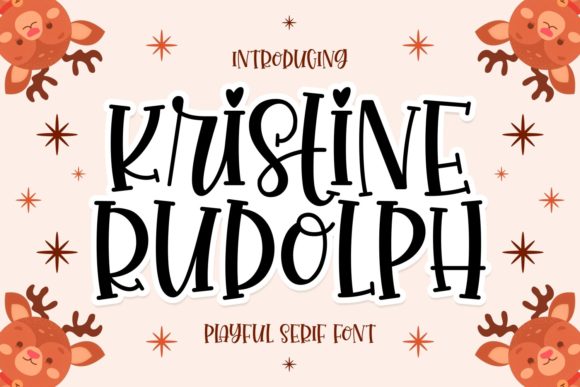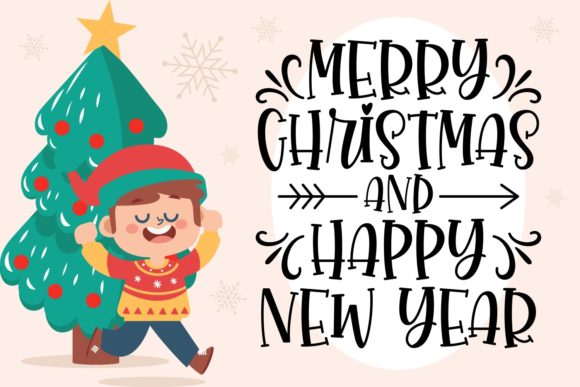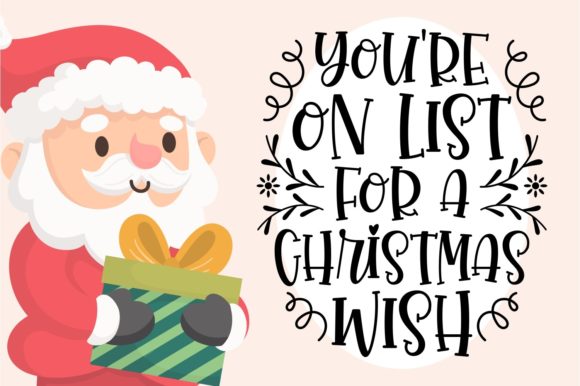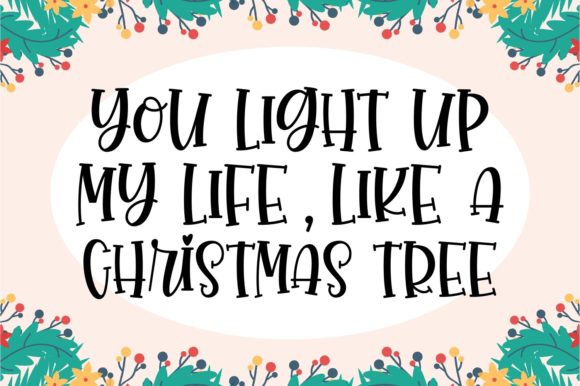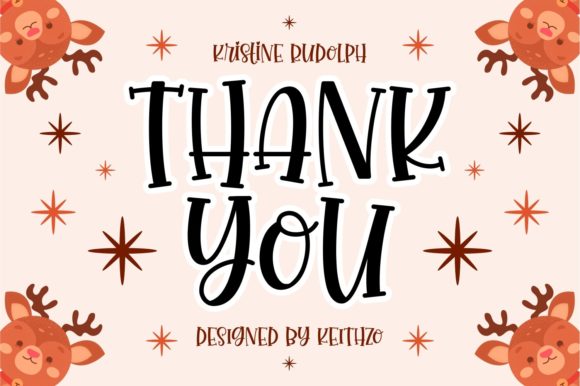
Kristine Rudolph Font
Kristine Rudolph is a charming and playful serif font. Whether you’re using it for crafts, digital design, presentations, or making greeting cards, this font has the potential to become your favorite go-to font, no matter the occasion!